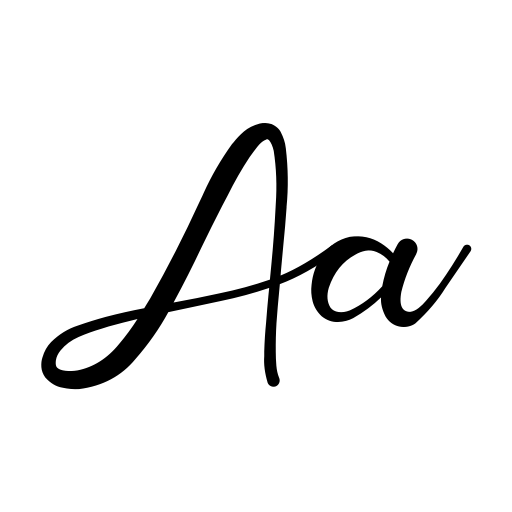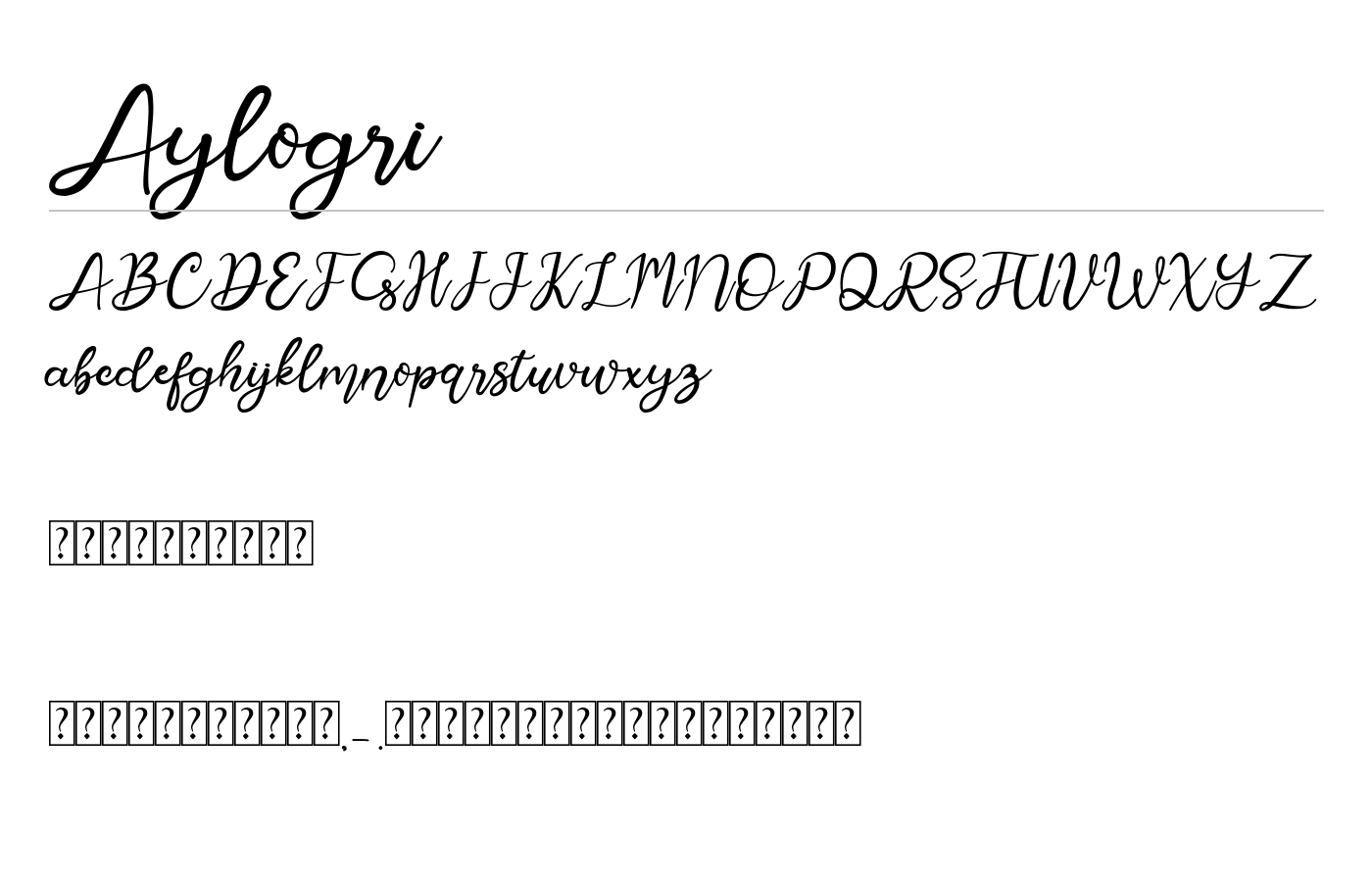
Aylogri is a graceful script font featuring smooth, flowing strokes and a medium weight that balances elegance with readability. Its cursive letterforms convey a warm, personal feel, making it ideal for branding, invitations, and creative projects that seek a stylish yet approachable look. This font works beautifully in headlines and decorative text where a touch of charm and sophistication is desired.
Aylogri Font
About Aylogri Font